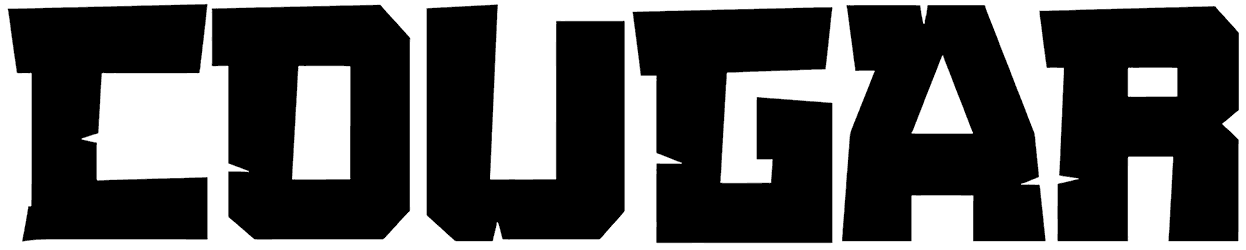
Cougar Font
If you want to create an eye-catching, funny design, you’d better take a look at our new cartoon font, Cougar. It features a thick shape with some cutting lines and comes with two different capital letters, but doesn’t have any lowercase characters.
This gaming font will be perfect for comic books, banners, magazine covers, product packaging, and T-shirt prints. Take advantage of it and you’re going to be surprised by the result.